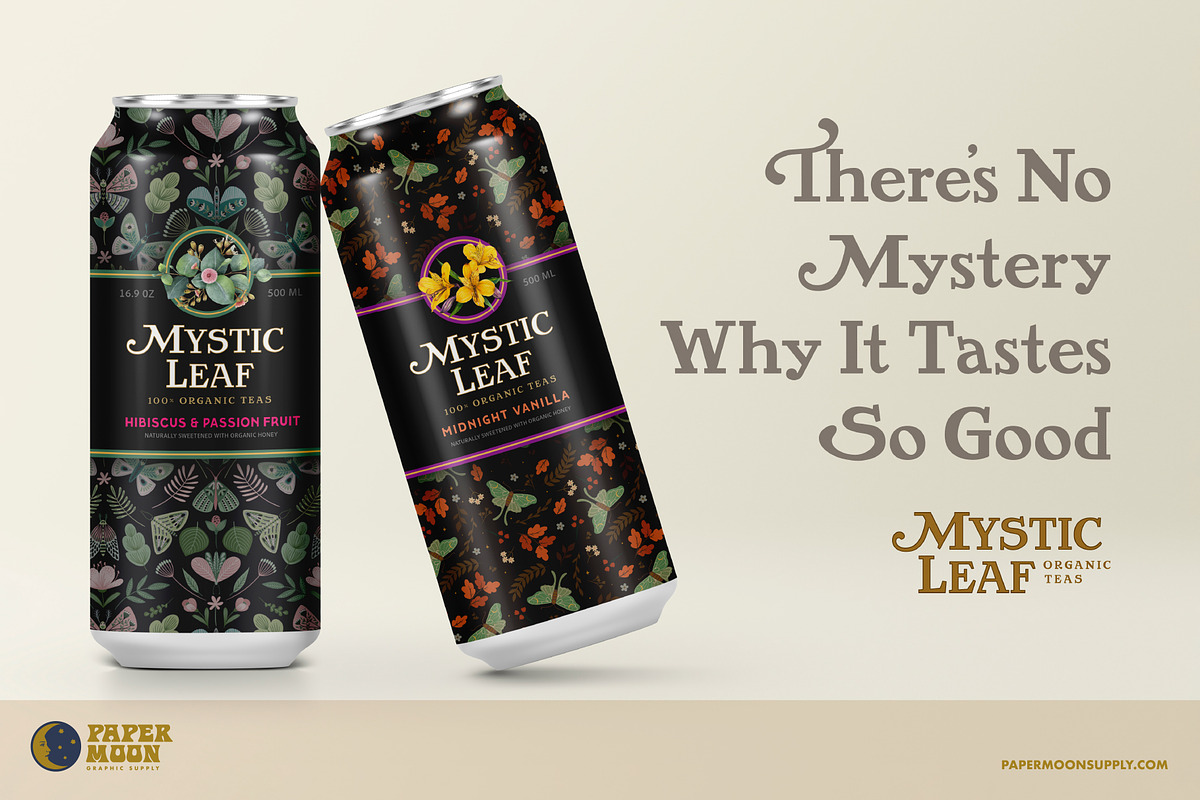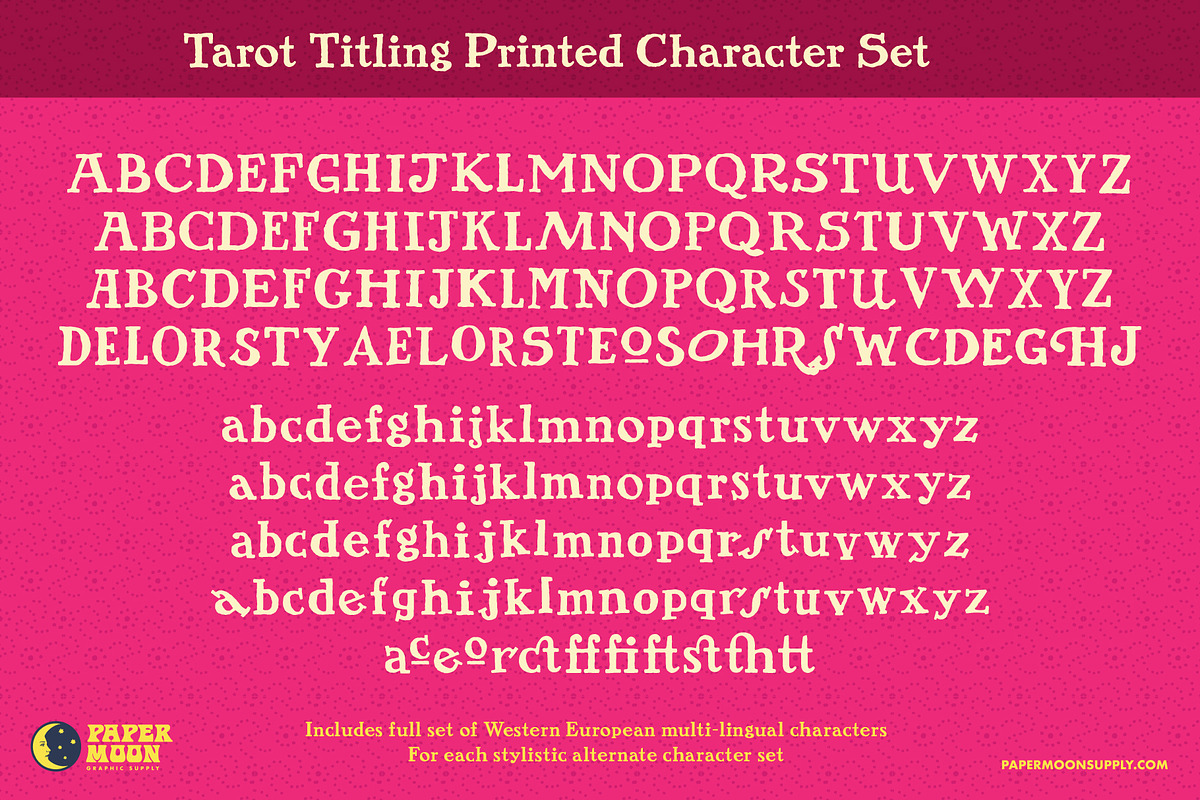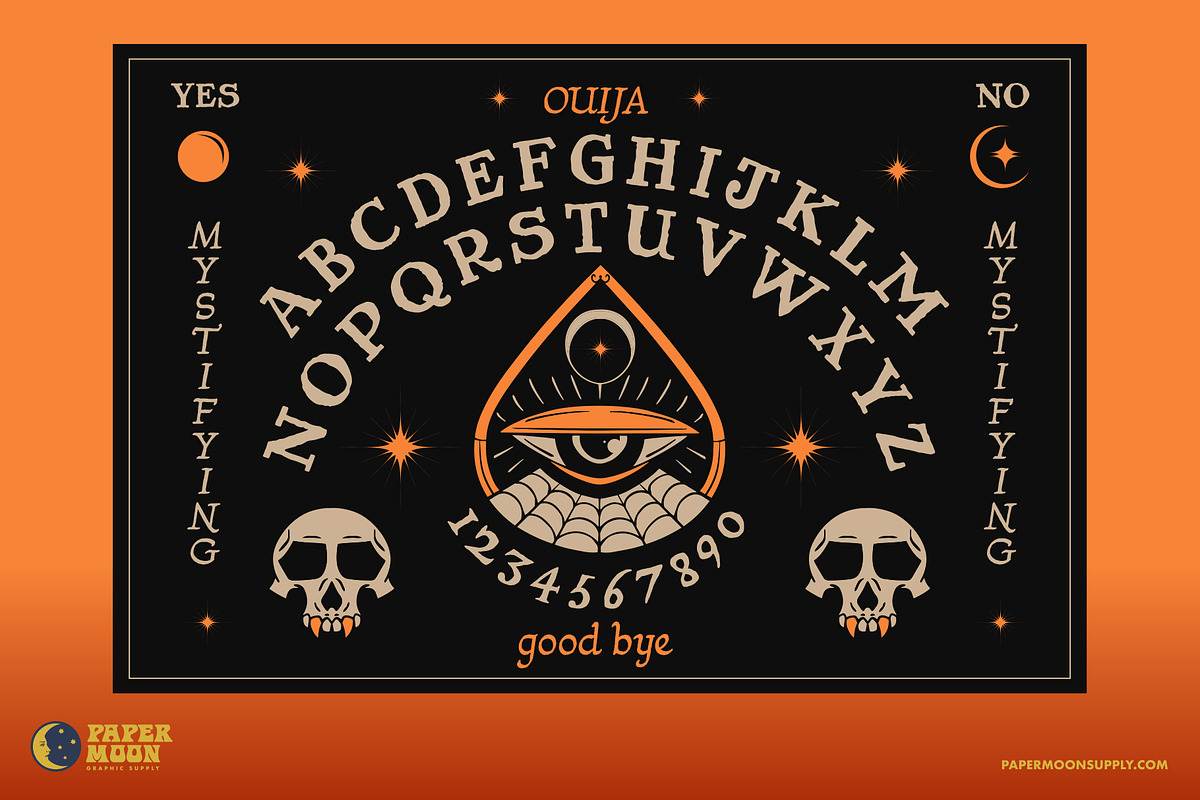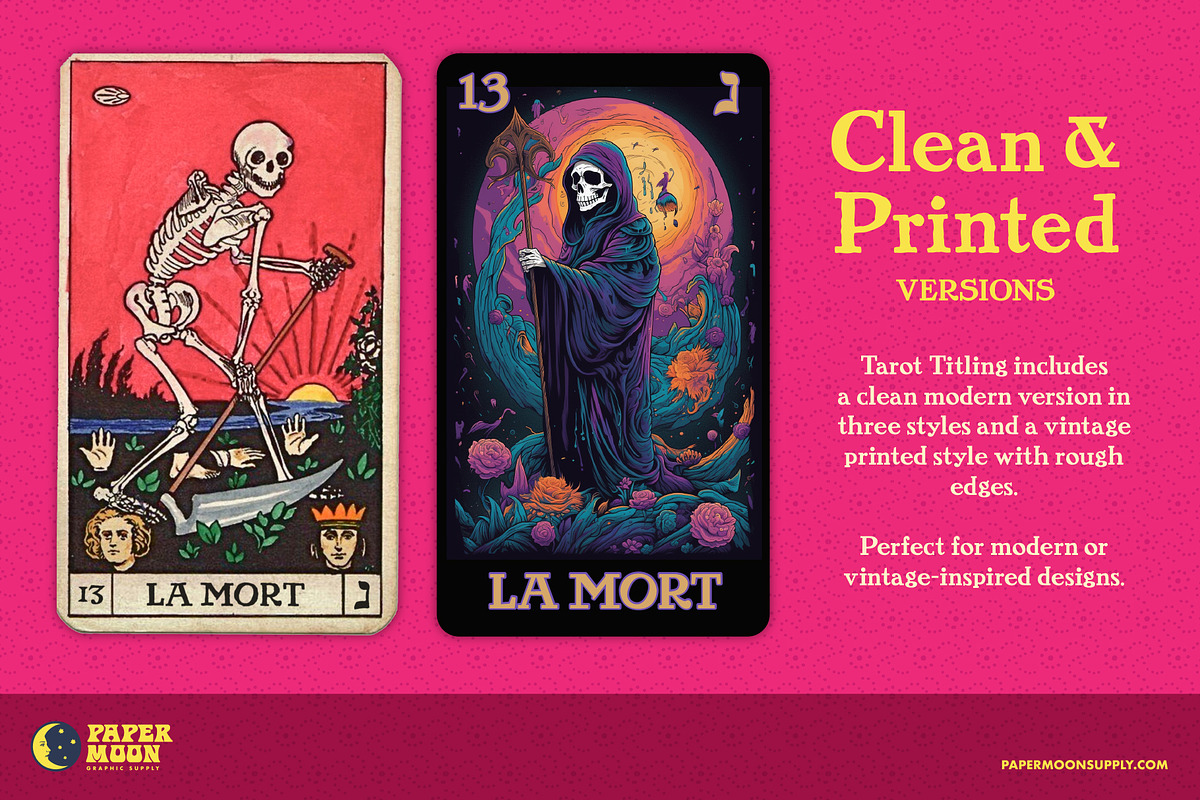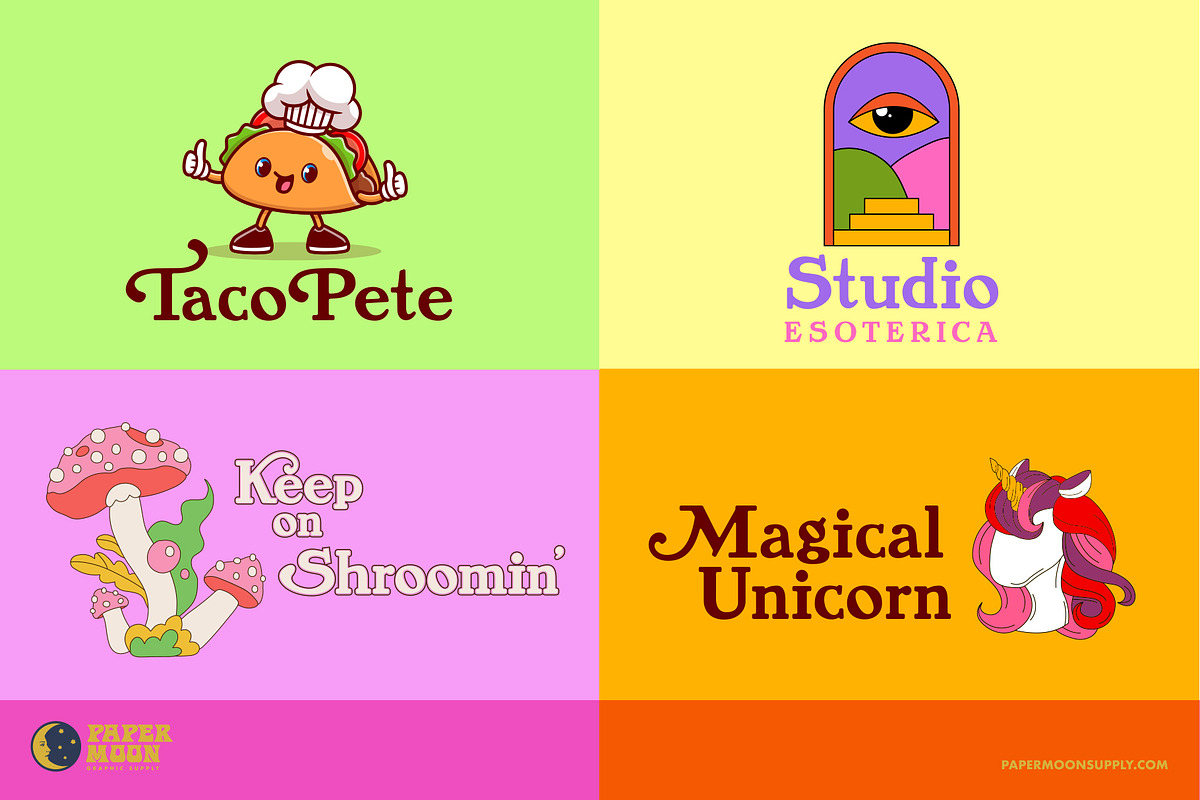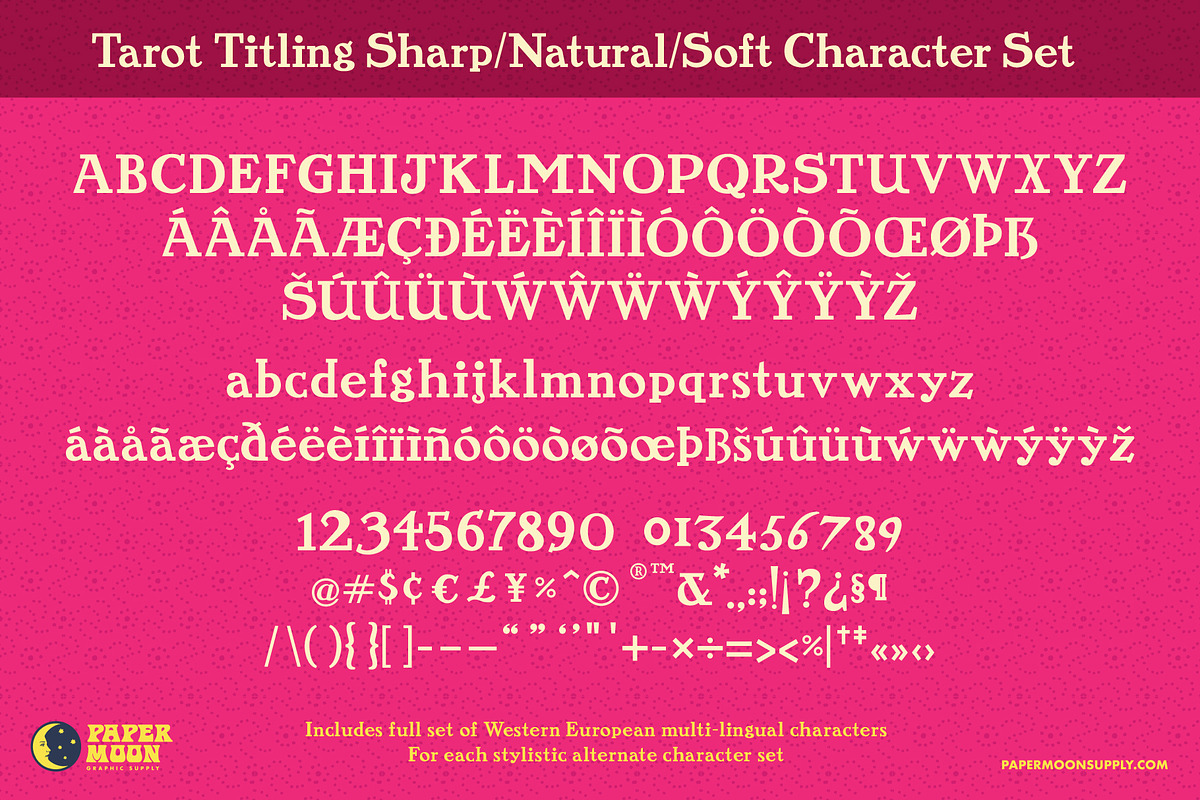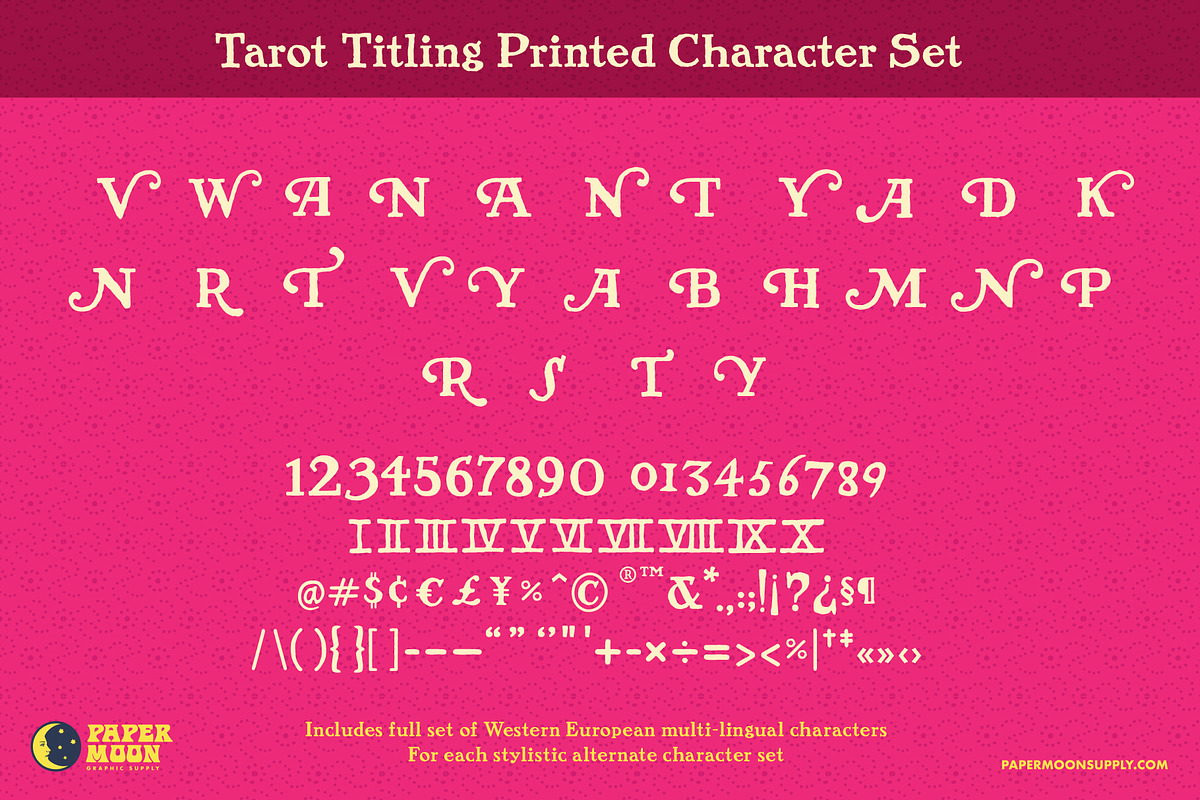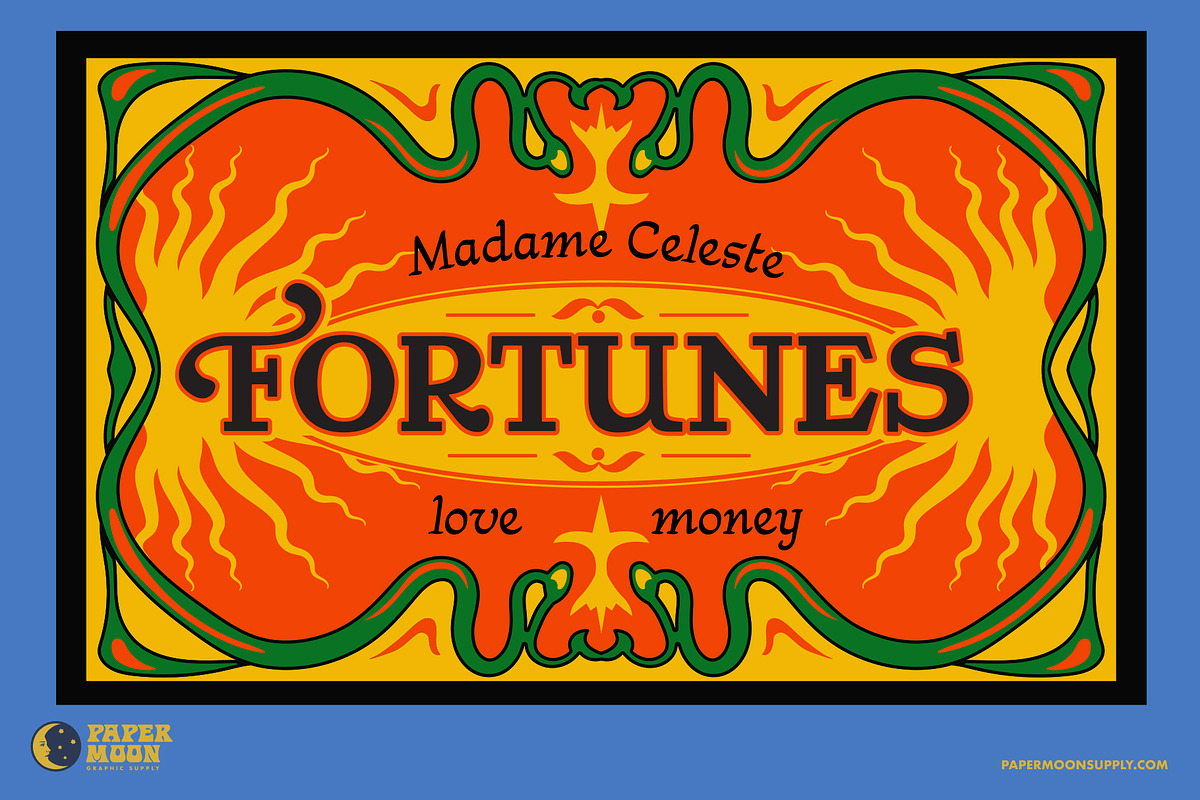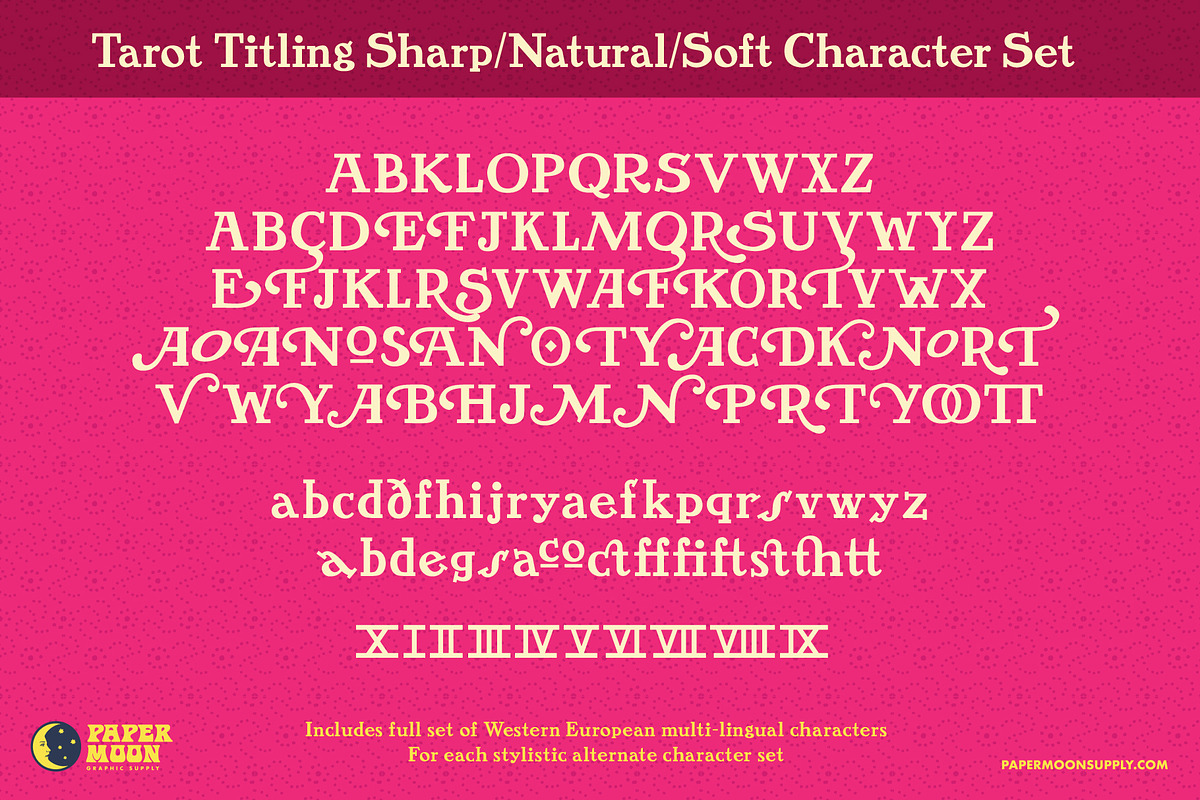
PM Tarot Titling and Text
A new font based on vintage tarot cart hand-lettering.
The PM Tarot typeface series began as a small personal project of digitizing the hand-lettering of the Rider-Waite Tarot. But over a six-month period in 2023, it expanded to 5 unique typefaces with many style variations.
With all the typefaces in the PM Tarot series, we've stayed true to the quirkiness and unique structure of the original lettering by including hundreds of alternate characters and ligatures. Even the clean, modern versions of the typefaces in the series maintain unique variations found in the original hand-lettering that deviate from common type classifications.
The classic Rider-Waite Tarot is the best-known Tarot deck. The vibrant cards, featuring full scenes with figures and symbols, were drawn in 1909 by Pamela Colman Smith under the direction of Arthur Edward Waite.
Initially published by the Rider Company, it is estimated more than 100 million copies of the deck exist in more than 20 countries.
- Full character set
- Multi-lingual support
- Over 250 glyphs, including alternate characters
- Highly-detailed “rough” letterpress printed-style edges to match our vintage-style clip art
- Clean version for modern designs
PM Tarot Titling was created by award-winning illustrator and designer developed Scott Banks. Until now, this font was part of Scott’s personal collection of design resources. Now you can get this typeface for your personal arsenal.